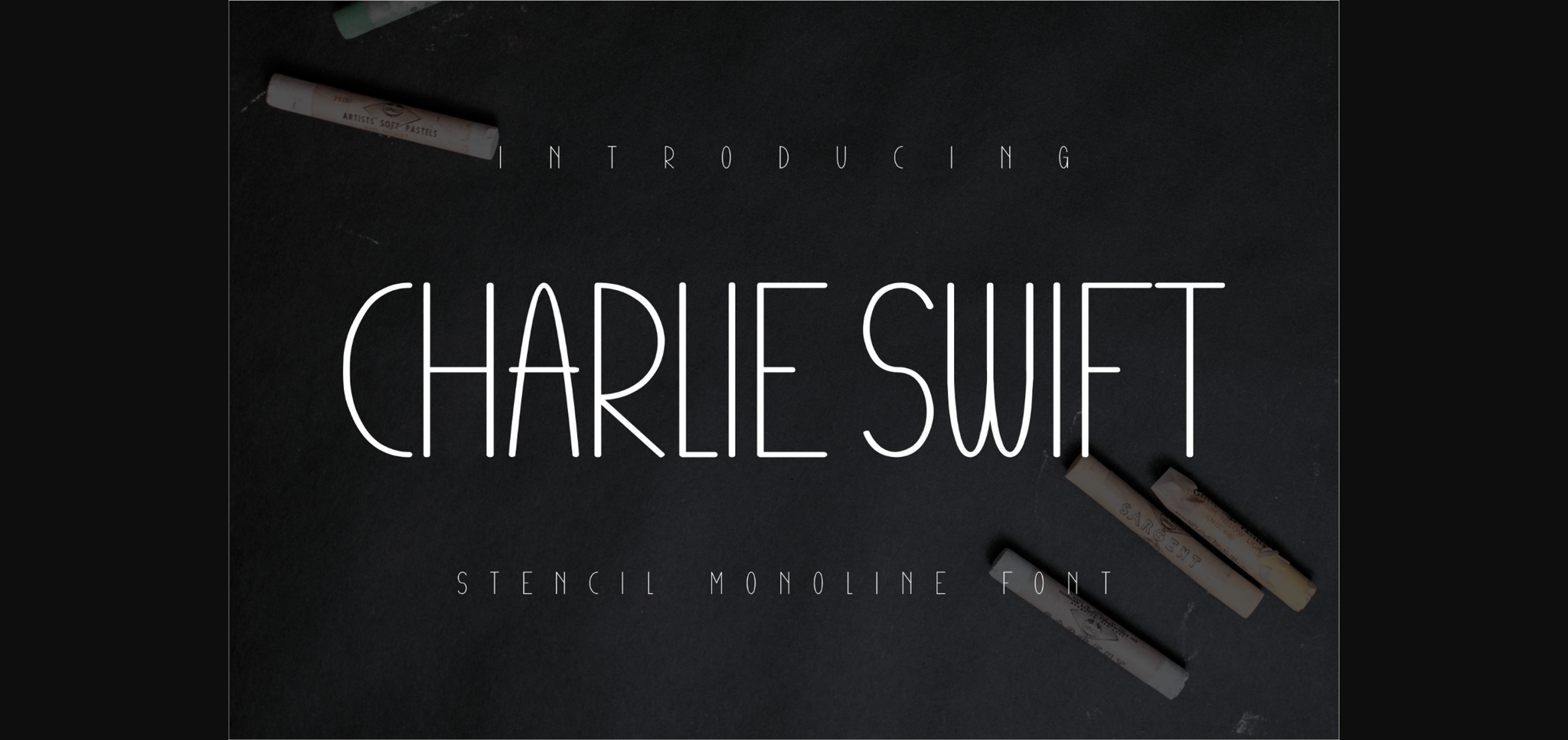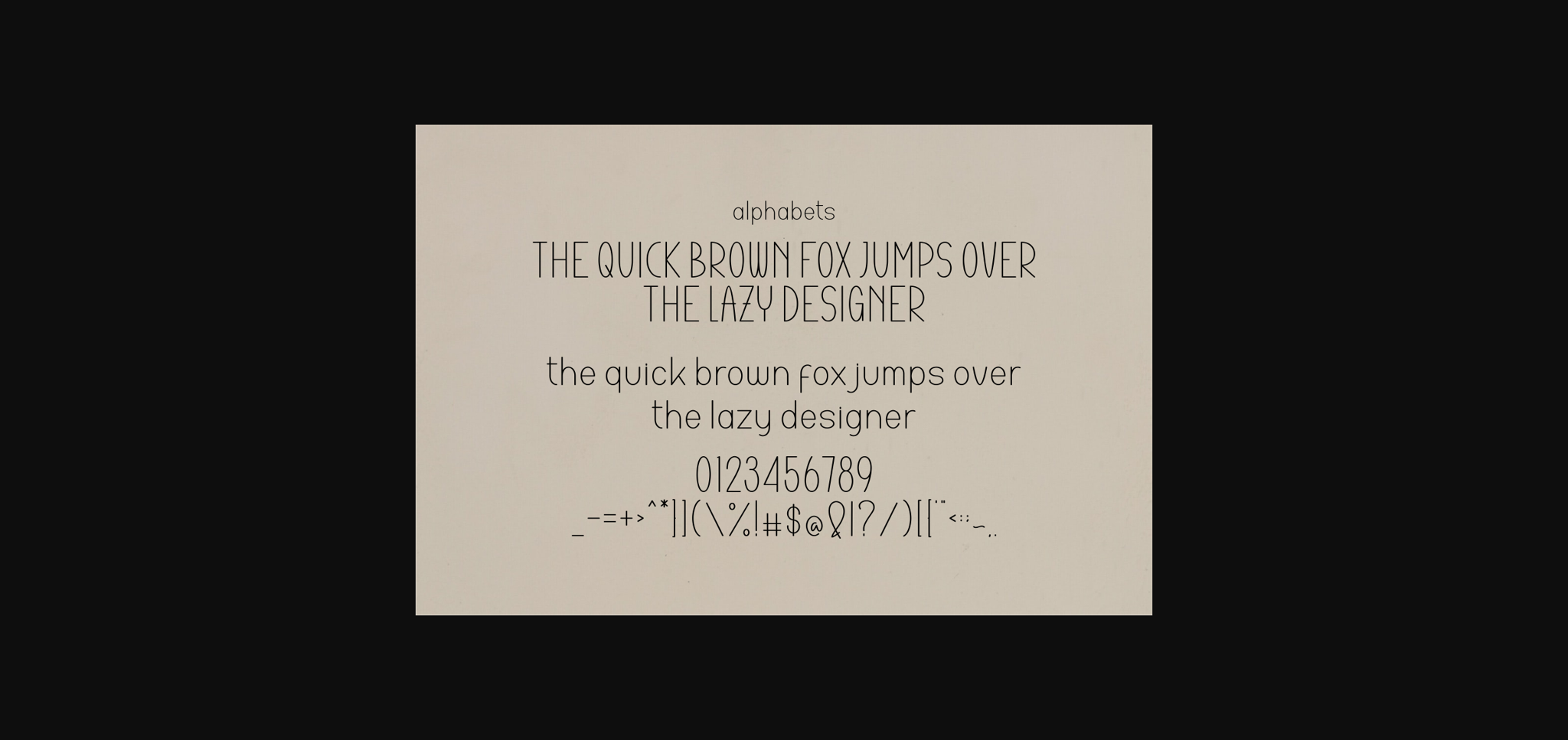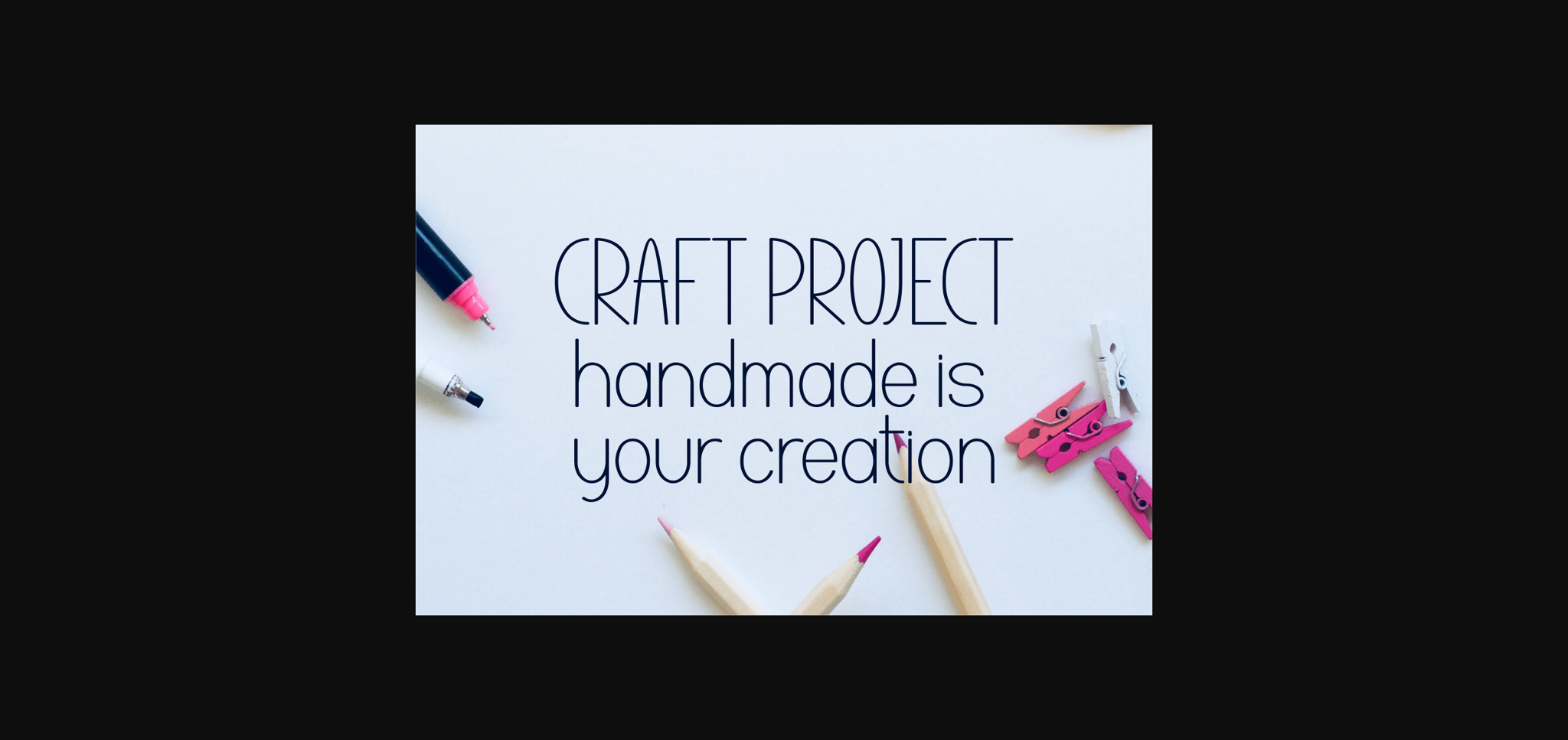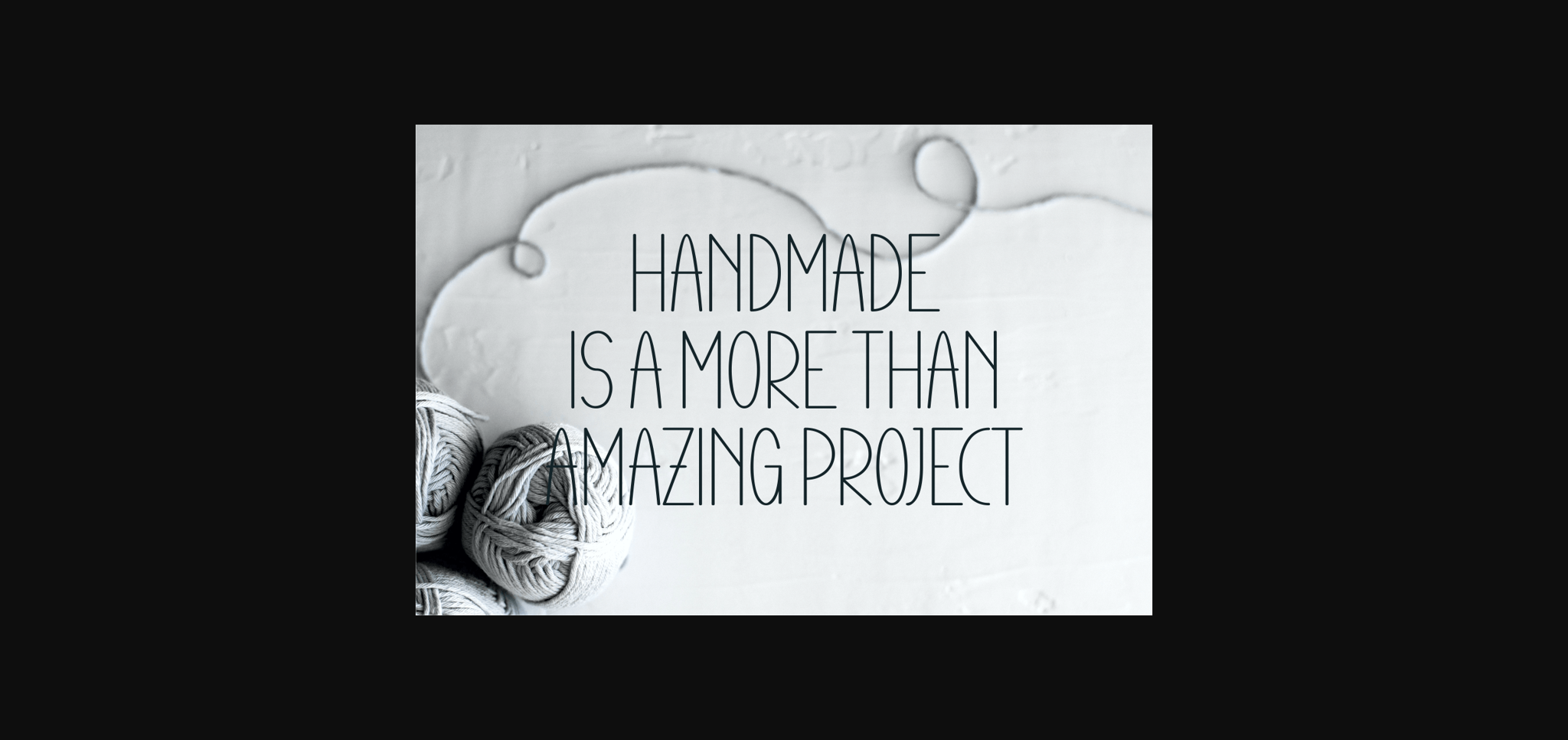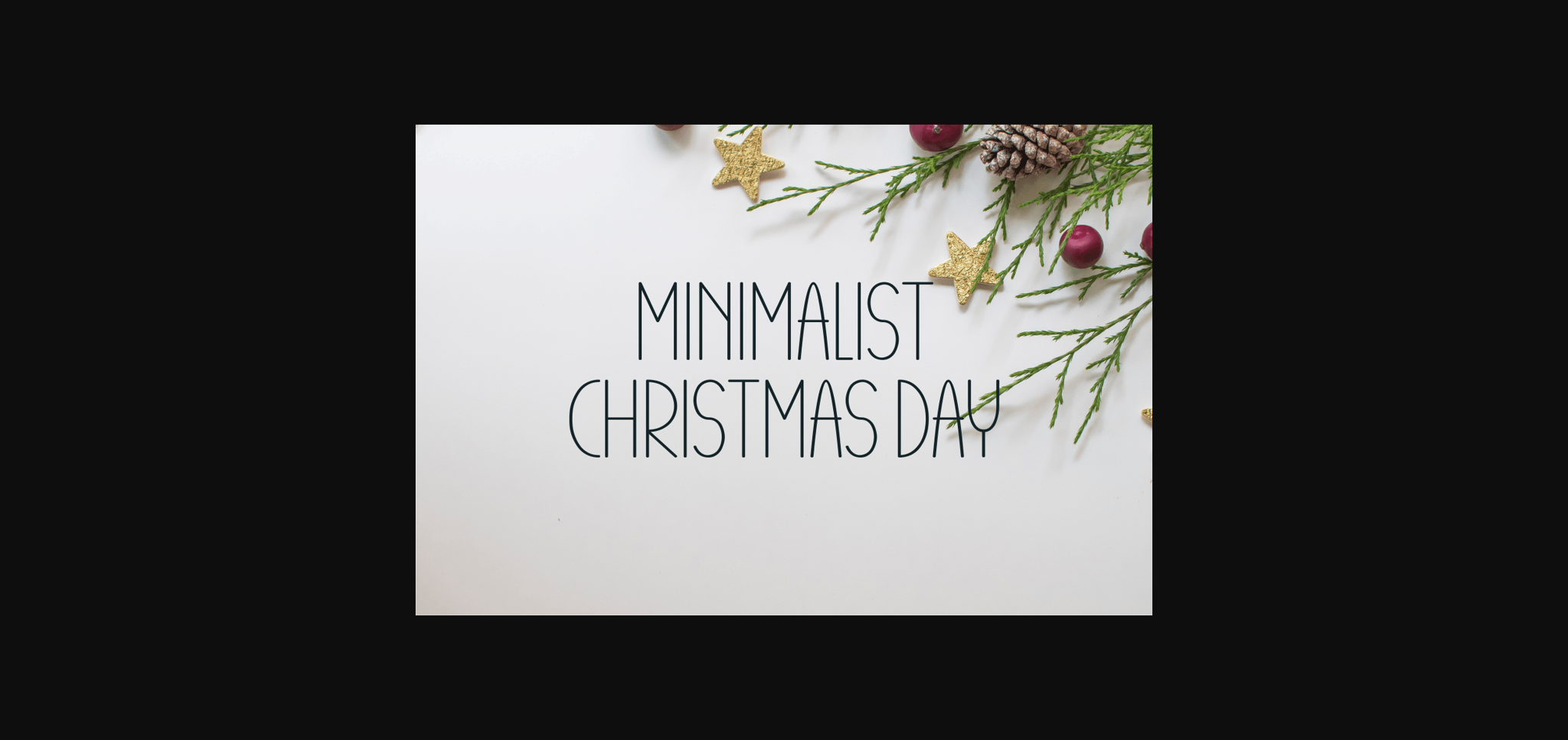
Charlie Swift Font
About Charlie Swift Font
Charlie Swift is an elegant, classy, and modern sans serif font. It’s a great font for fashion, apparel projects, signatures, album covers, logos, branding, magazines, social media, and advertisements, but also works great for other projects.